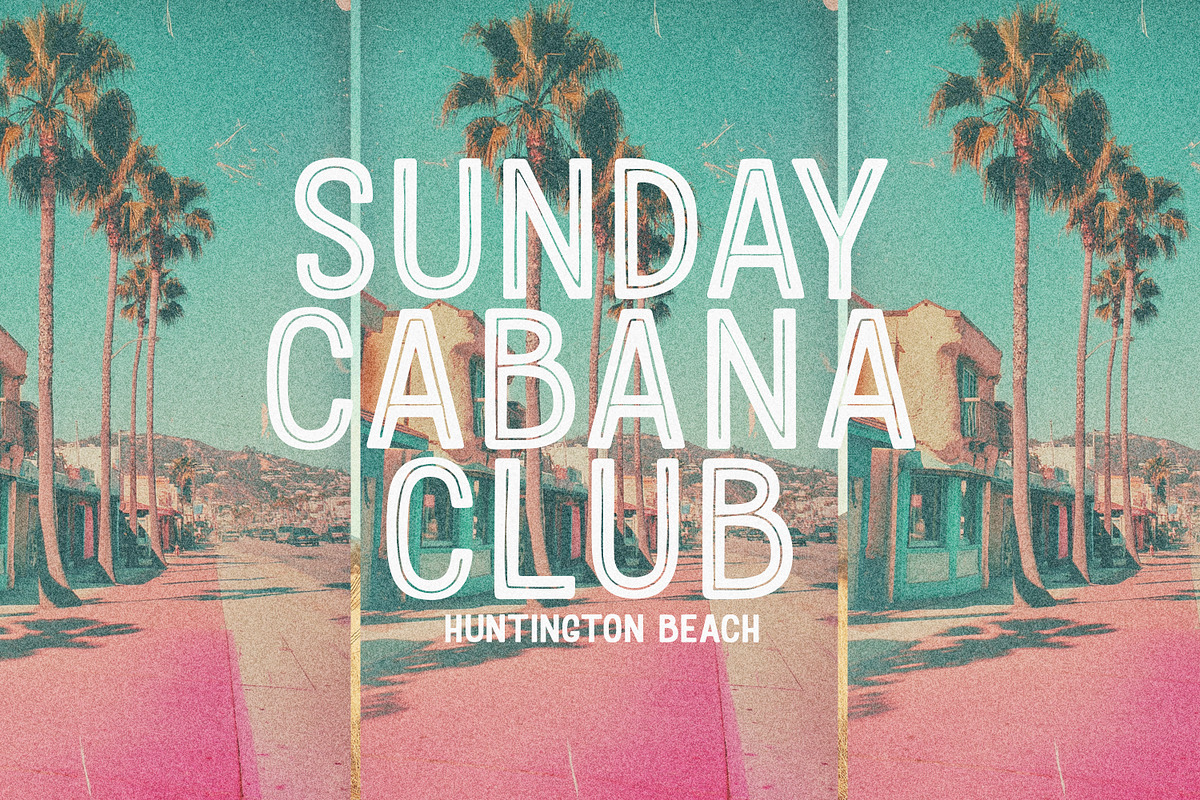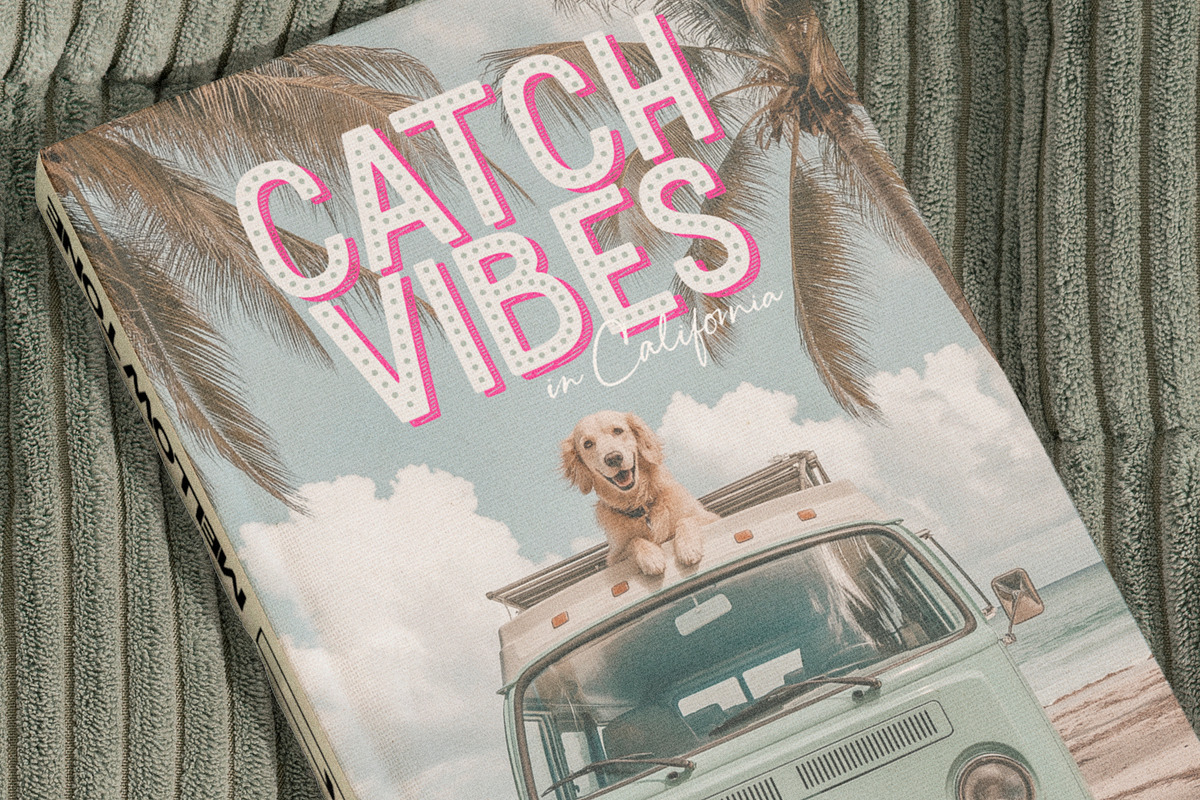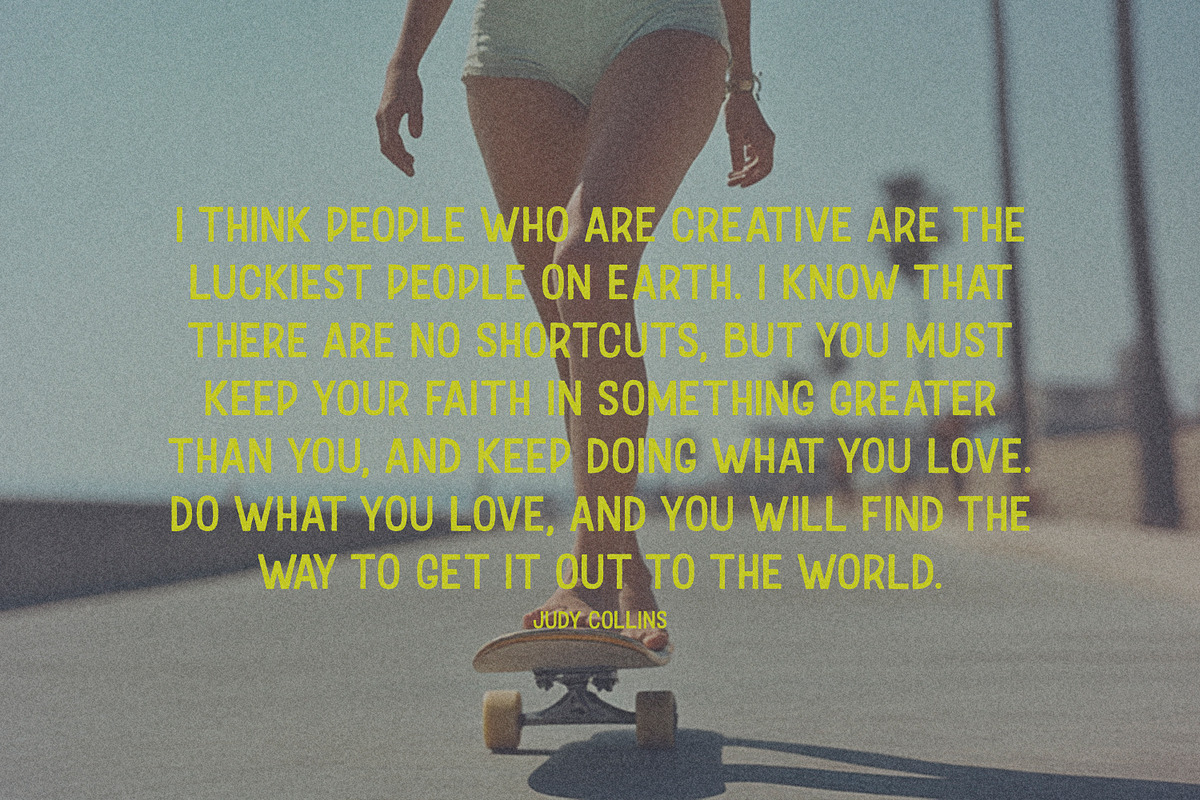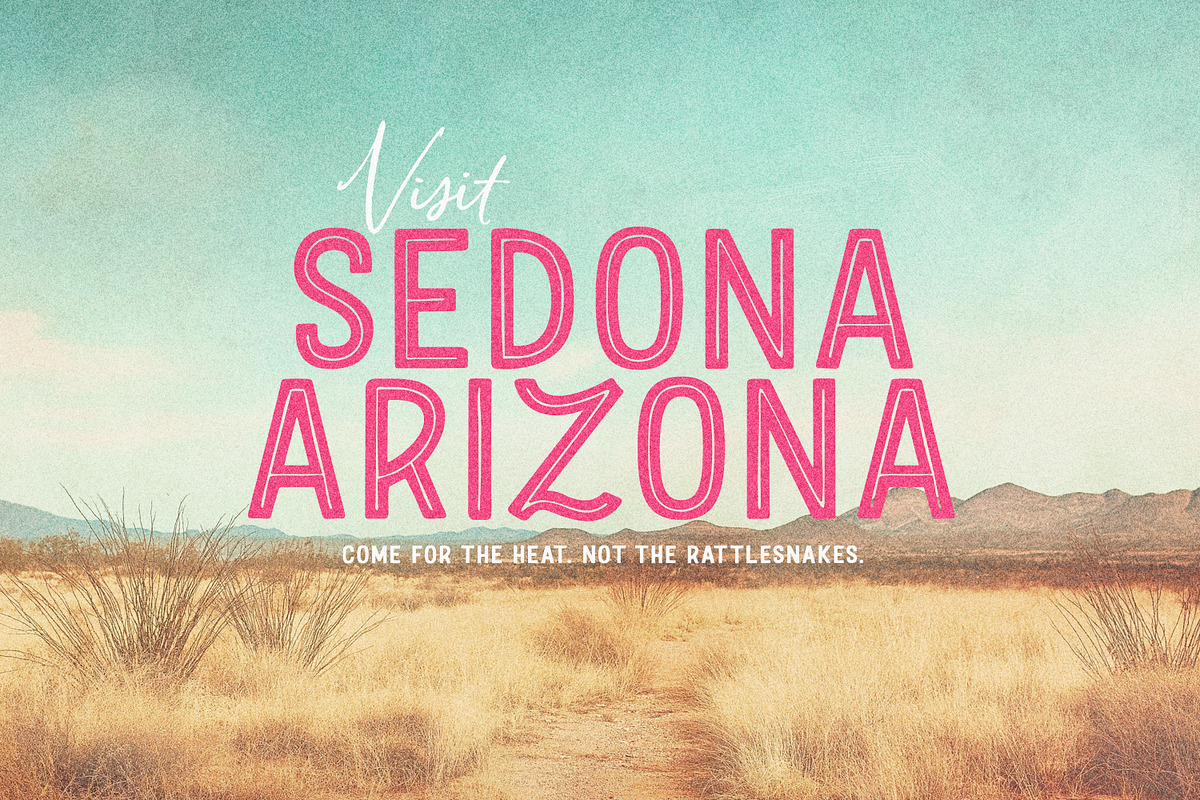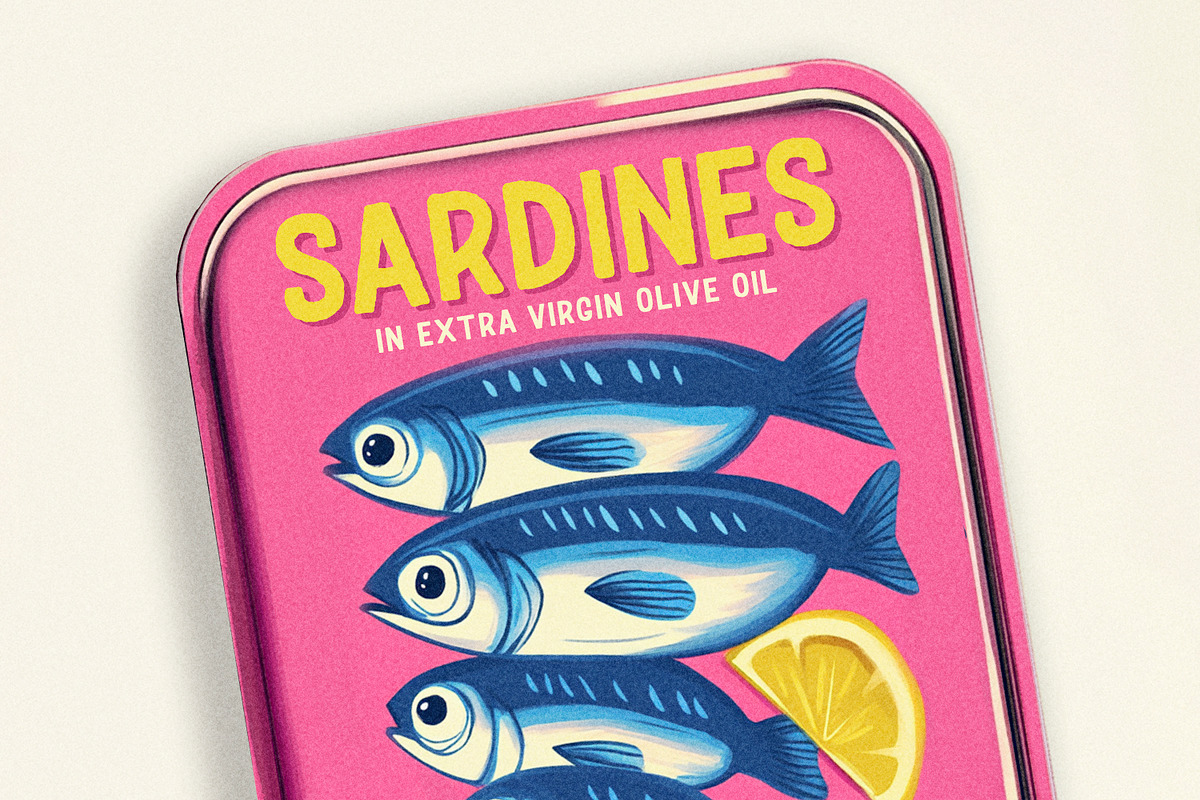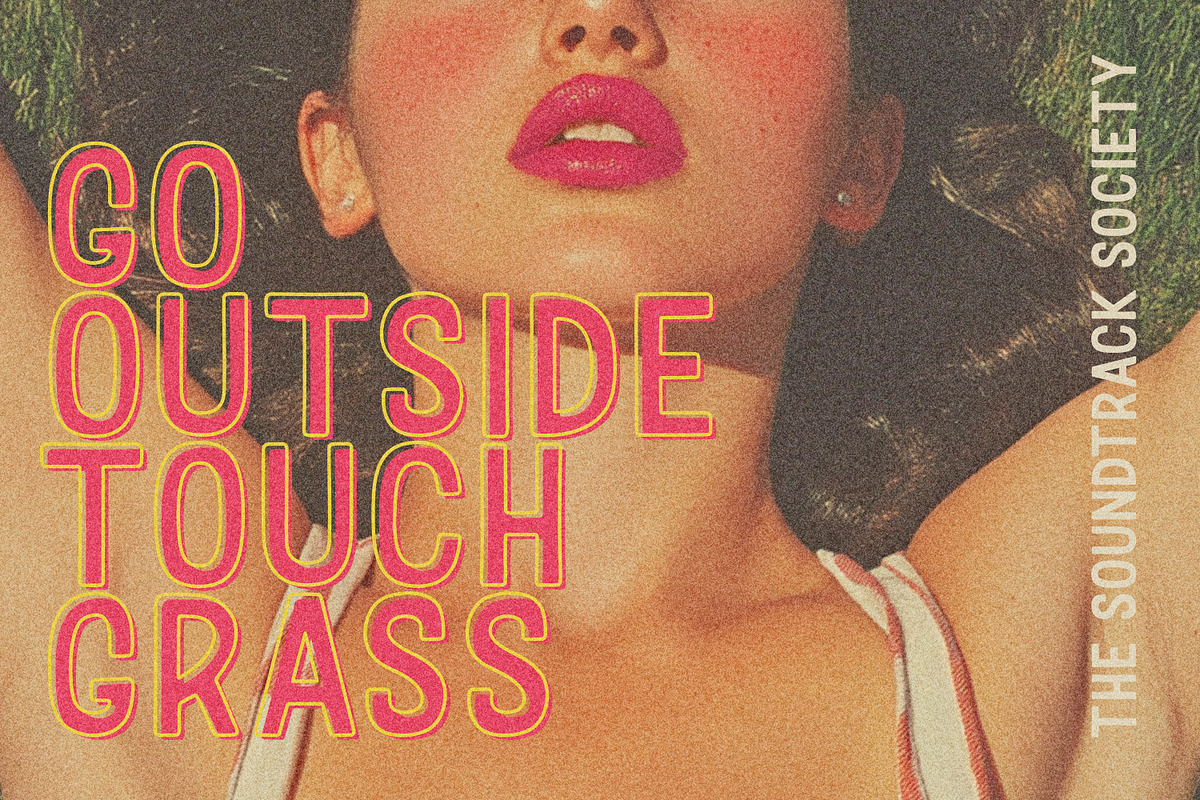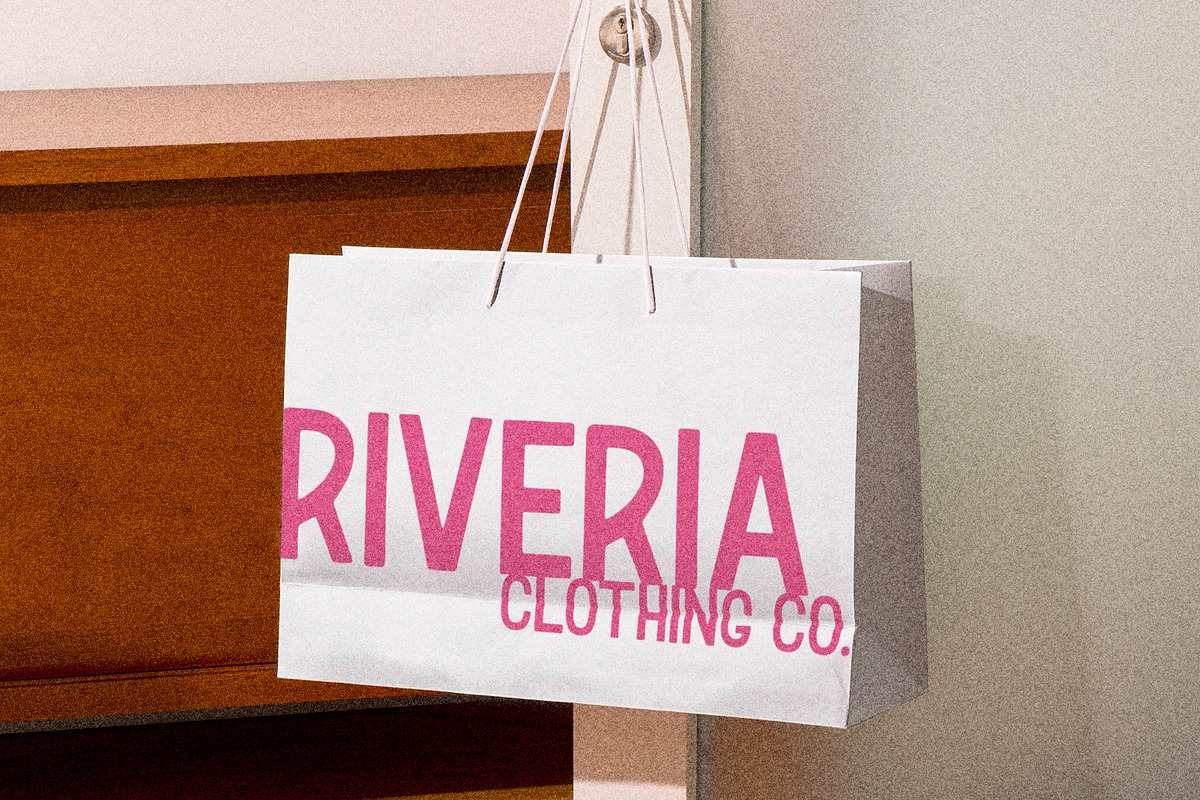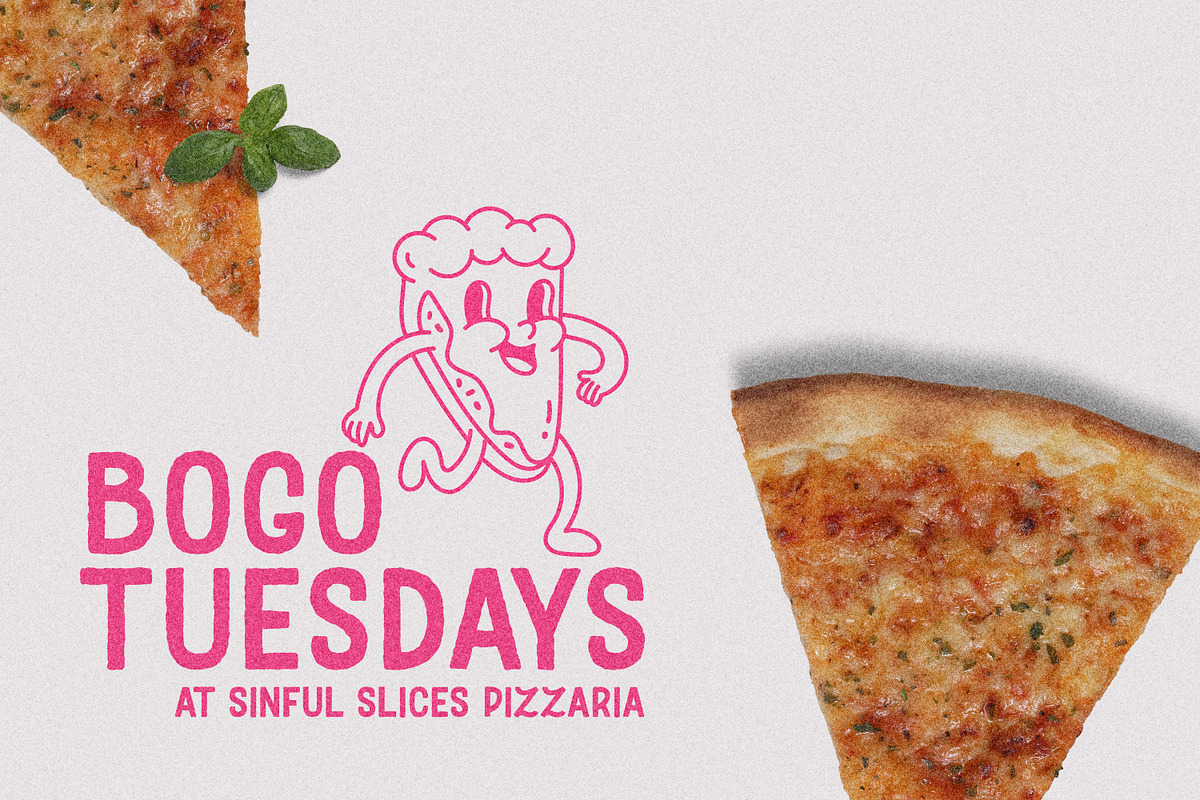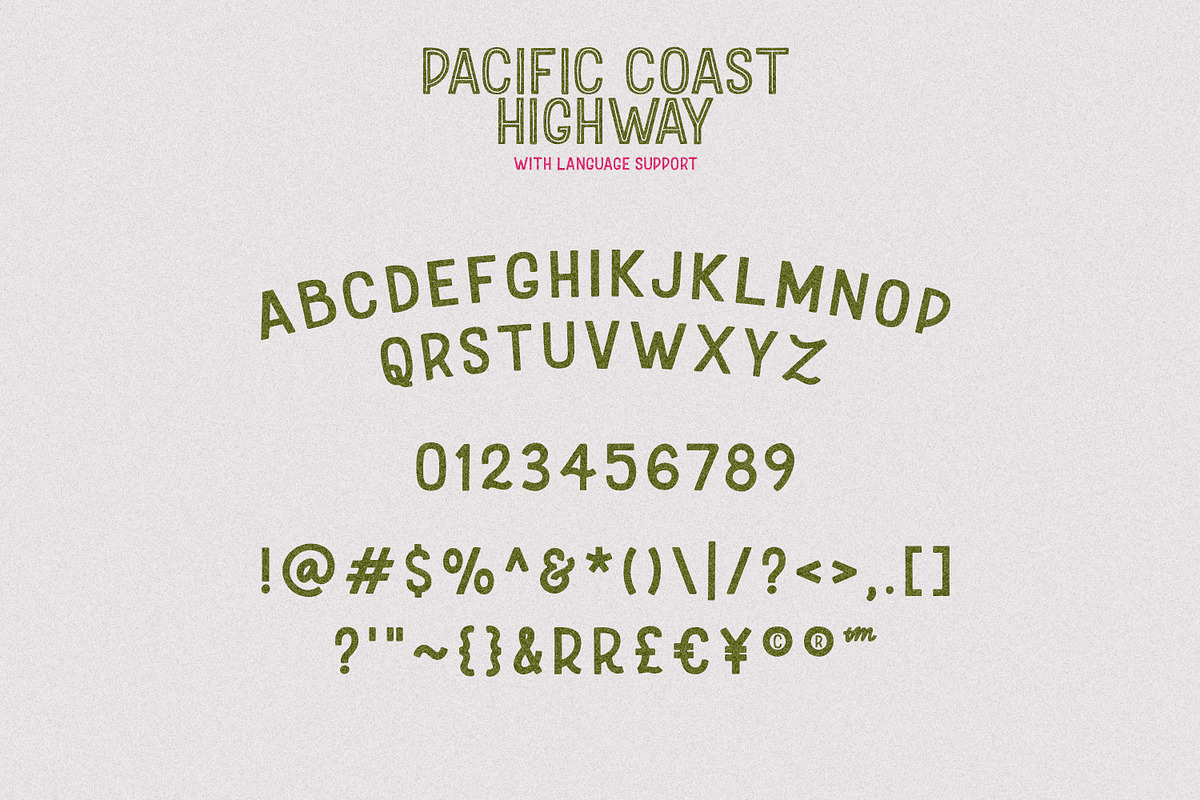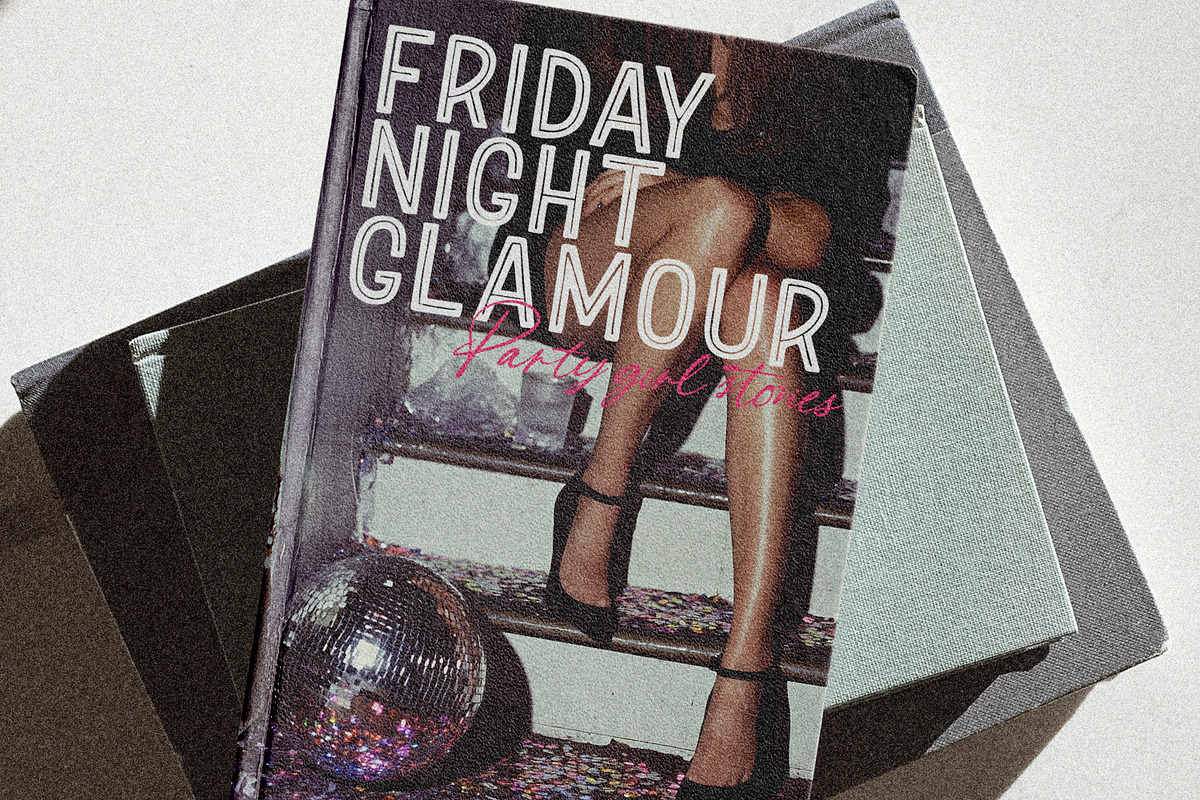
Pacific Coast Highway | Retro Fonts
The Pacific Coast Highway Collection is HERE! ๐๐ด๐๐
Looking for a clean, magazine-ready typeface with retro vibes?! Well, I gotcha covered. This classic, layered set of 12 typefaces are perfect for large-scale print. Stack, overlay and recolor for a cool retro effect on ads, magazines, editorials, packaging, branding, books, quotes and more!